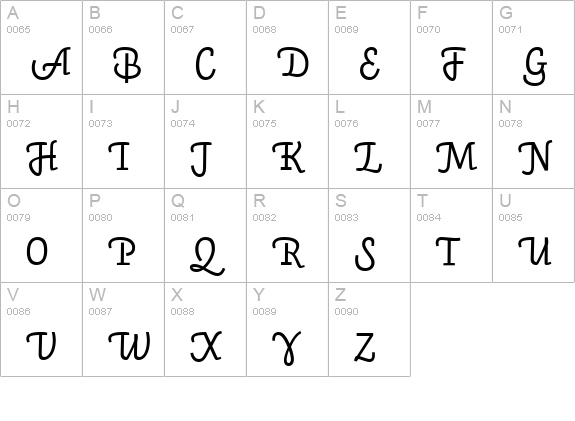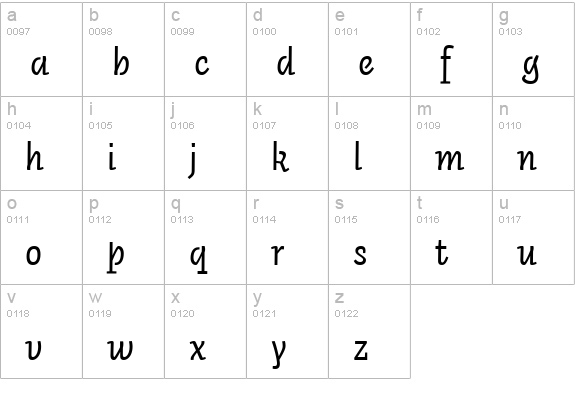
Auto 3 Italic Font Details
Auto 3 Italic is a distinctive, italic variant in the Auto typeface family \xE2\x80\x94 well suited to design and typography projects.
Introducing Auto 3 Italic font, a sleek and modern typeface that exudes sophistication and elegance. Its italicized design adds a touch of flair to any project, making it perfect for adding a stylish and contemporary look to your designs. With its clean lines and unique character shapes, Auto 3 Italic font is sure to make a statement. Best of all, this stunning font is available for free download exclusively at FontsMarket.com. Don't miss out on the opportunity to elevate your designs with the exquisite Auto 3 Italic font today!